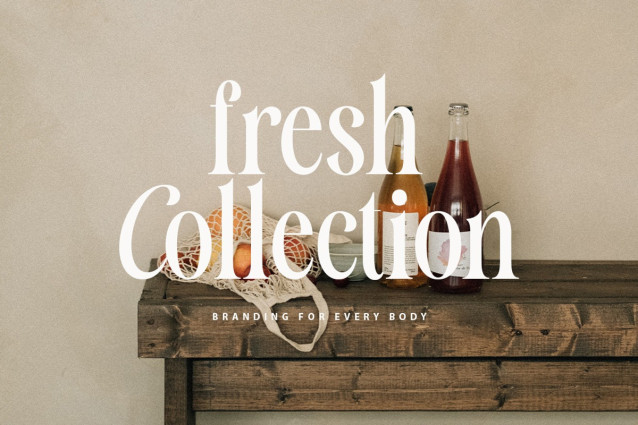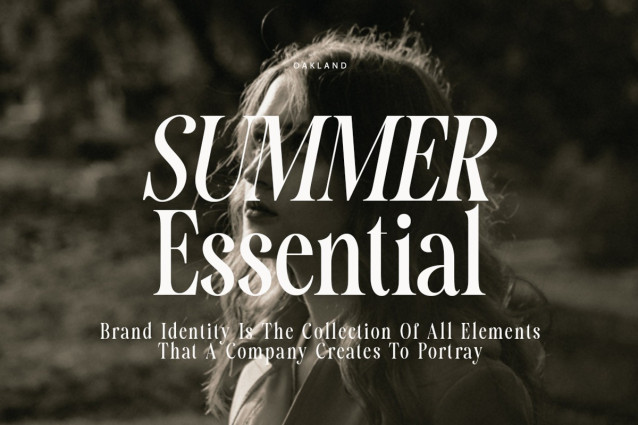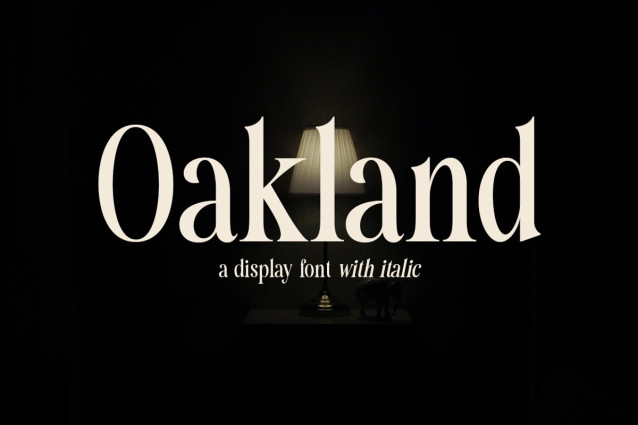
Oakland Serif Font
Oakland Font is a stylish and elegant serif font that exudes elegance and class. This font was particularly crafted for those who need a beautiful and refreshing look to their designs.